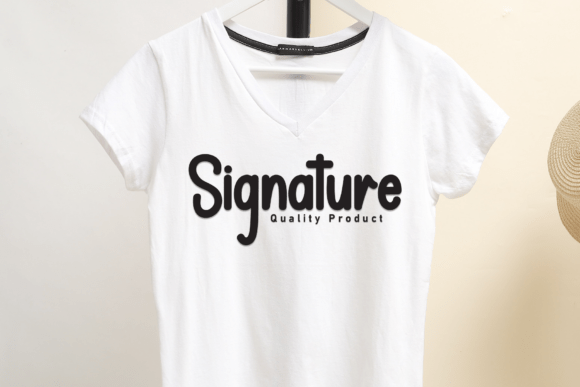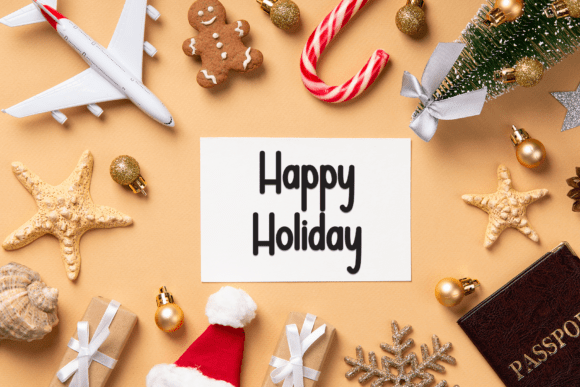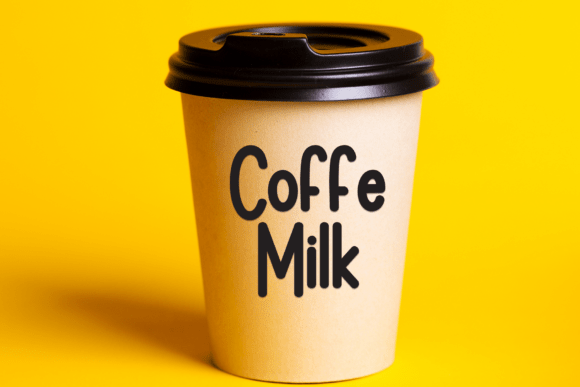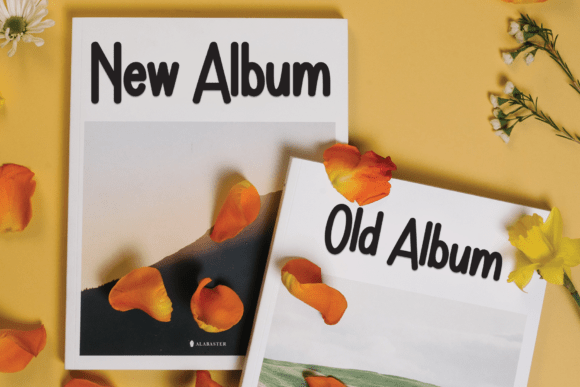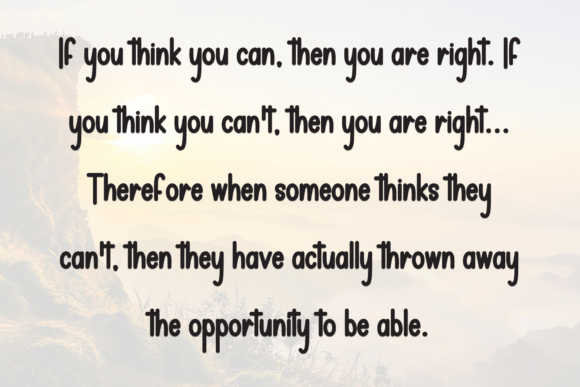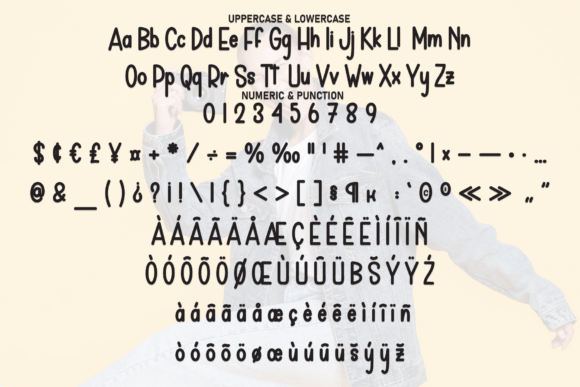
Introducing Happy Photograper Font: The Perfect Blend of Fun and Relaxation
Are you tired of using the same old fonts for your creative projects? Look no further than Happy Photograper Font, a neat and casual display font that’s sure to bring a smile to your face. With its clean lines and easygoing vibe, this cheerful typeface is perfect for summer posters, event flyers, and playful branding.
The Characteristics of Happy Photograper Font
Happy Photograper Font is a unique and refreshing typeface that’s designed to evoke feelings of fun and relaxation. Its clean lines and simple shapes make it easy to read and understand, while its casual and laid-back vibe gives it a friendly and approachable feel. This font is perfect for designers and crafters who want to add a touch of personality to their work.
Perfect for Summer Posters and Event Flyers
Summer is here, and what better way to celebrate than with a bold and eye-catching font? Happy Photograper Font is perfect for creating summer posters, event flyers, and other marketing materials that need to grab attention and evoke a sense of fun and excitement. Whether you’re promoting a music festival, a beach party, or a summer sale, this font is sure to make your message stand out.
Playful Branding and Packaging
Happy Photograper Font is also perfect for playful branding and packaging. If you’re launching a new product or service that needs a fun and youthful vibe, this font is sure to deliver. From ice cream shops to surf schools, Happy Photograper Font is the perfect choice for businesses that want to convey a sense of fun and relaxation.
Key Features of Happy Photograper Font
- Clean lines and simple shapes: Happy Photograper Font features clean lines and simple shapes that make it easy to read and understand.
- Easygoing vibe: This font has a casual and laid-back vibe that’s perfect for summer posters, event flyers, and playful branding.
- Cheerful and fun: Happy Photograper Font is designed to evoke feelings of fun and relaxation, making it perfect for creative projects that need a youthful and energetic vibe.
- Highly versatile: This font is perfect for a wide range of creative projects, from posters and flyers to branding and packaging.
Tips and Tricks for Working with Happy Photograper Font
- Use it for headlines: Happy Photograper Font is perfect for headlines and titles, where its bold and playful vibe can really shine.
- Experiment with colors: Try using Happy Photograper Font in different colors to add an extra layer of fun and personality to your design.
- Pair it with other fonts: Happy Photograper Font pairs well with other fonts, such as sans-serif fonts or script fonts. Experiment with different font combinations to find the perfect look for your project.
Happy Photograper Font is a unique and refreshing typeface that’s perfect for designers and crafters who want to add a touch of fun and relaxation to their creative projects. With its clean lines, easygoing vibe, and cheerful personality, this font is sure to bring a smile to your face. Whether you’re creating summer posters, event flyers, or playful branding, Happy Photograper Font is the perfect choice.